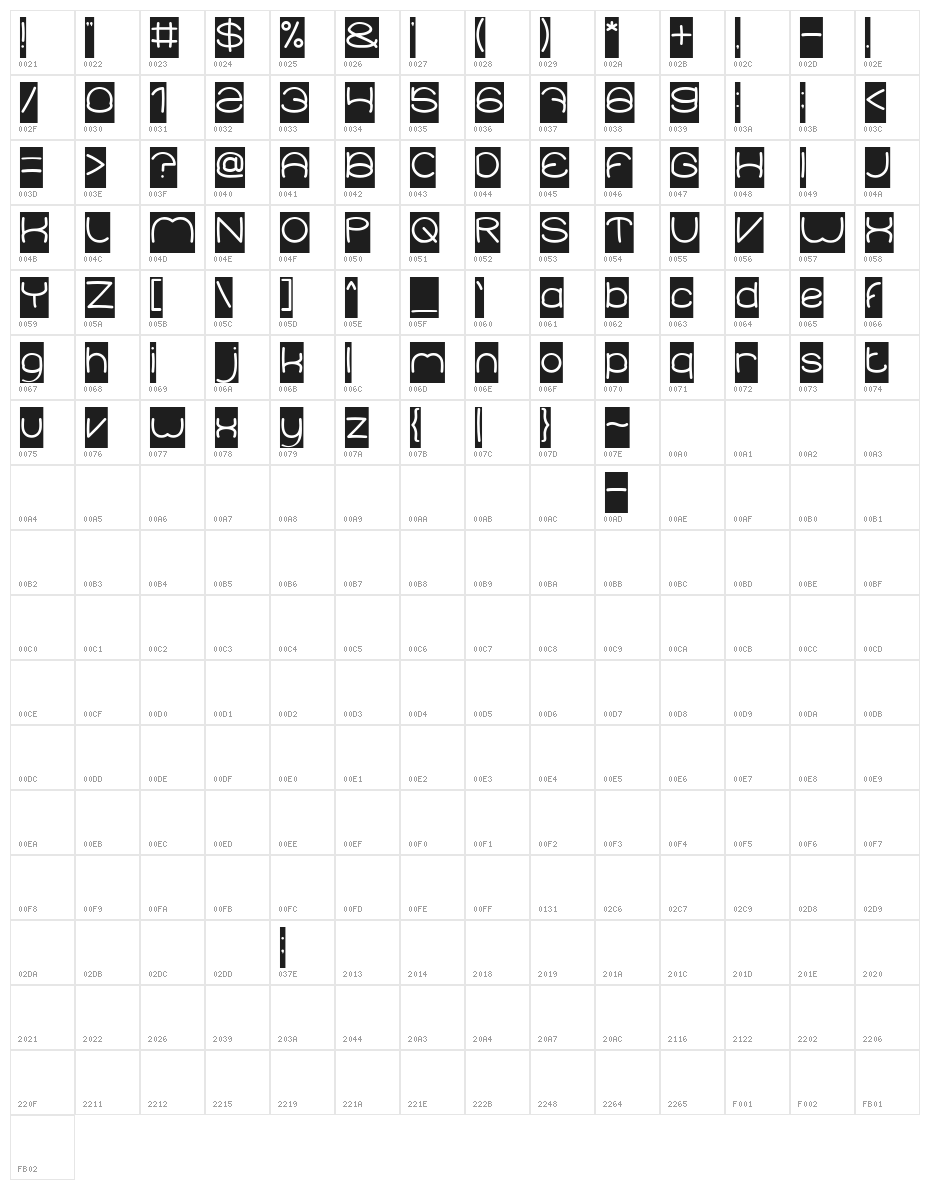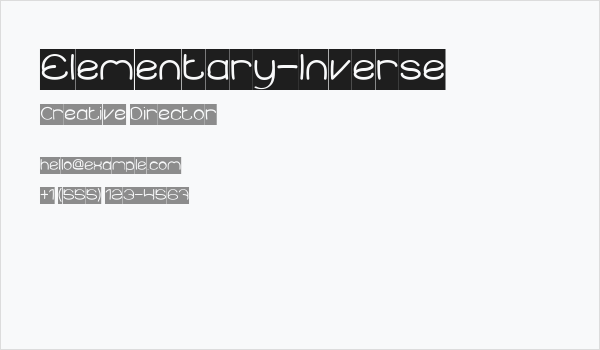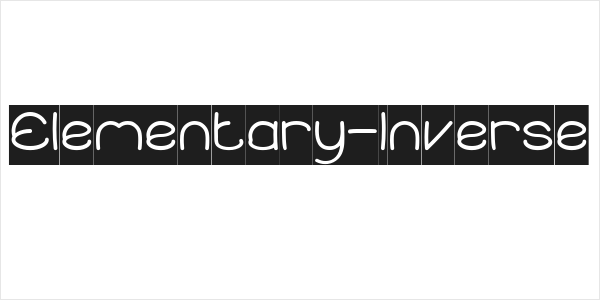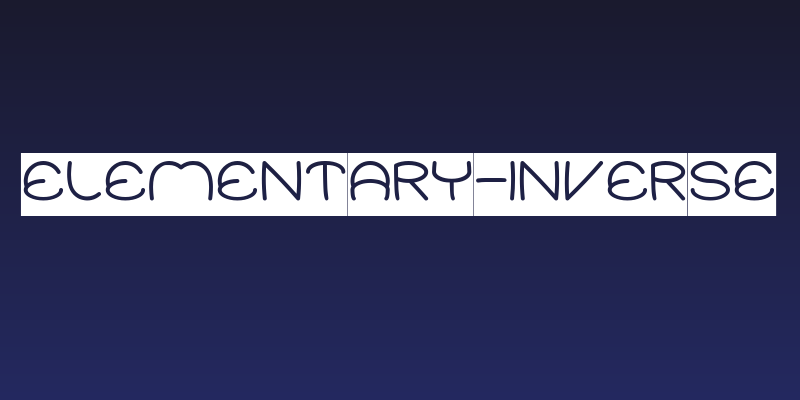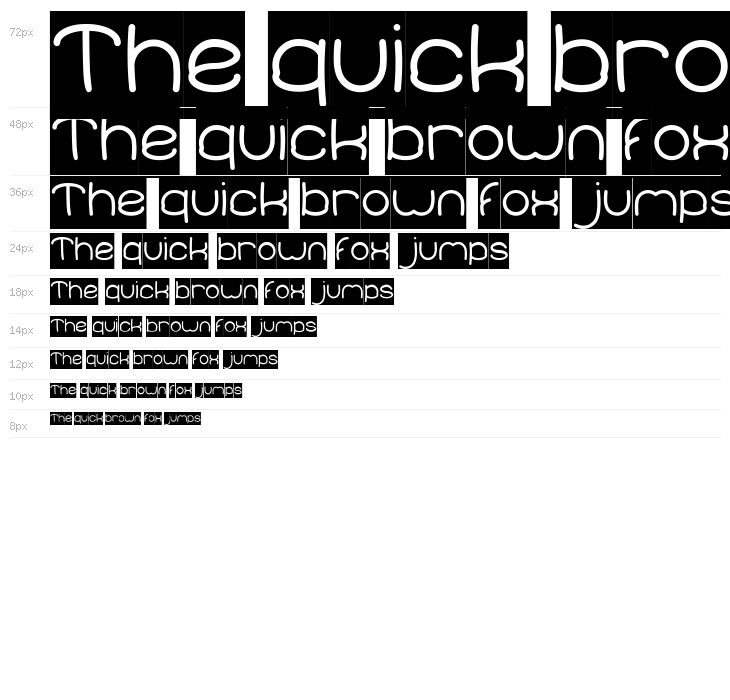
Elementary-Inverse Font
Elementary-Inverse Description
This font features a playful and modern design with rounded edges and a consistent stroke width. The characters exhibit a unique blend of simplicity and creativity, making them stand out with their slightly elongated forms and smooth curves. The uppercase letters maintain a uniform height, while the lowercase letters offer a harmonious balance with their slightly smaller size. Numbers and special characters are designed to match the overall aesthetic, providing a cohesive look across all elements. The font's clean and minimalist style makes it versatile for various applications, while its distinctiveness adds a touch of personality to any project.
| Use Case | Headlines, Logos, Creative content |
| Proposed Projects | Ideal for children's books, educational materials, playful branding, and creative digital content. |